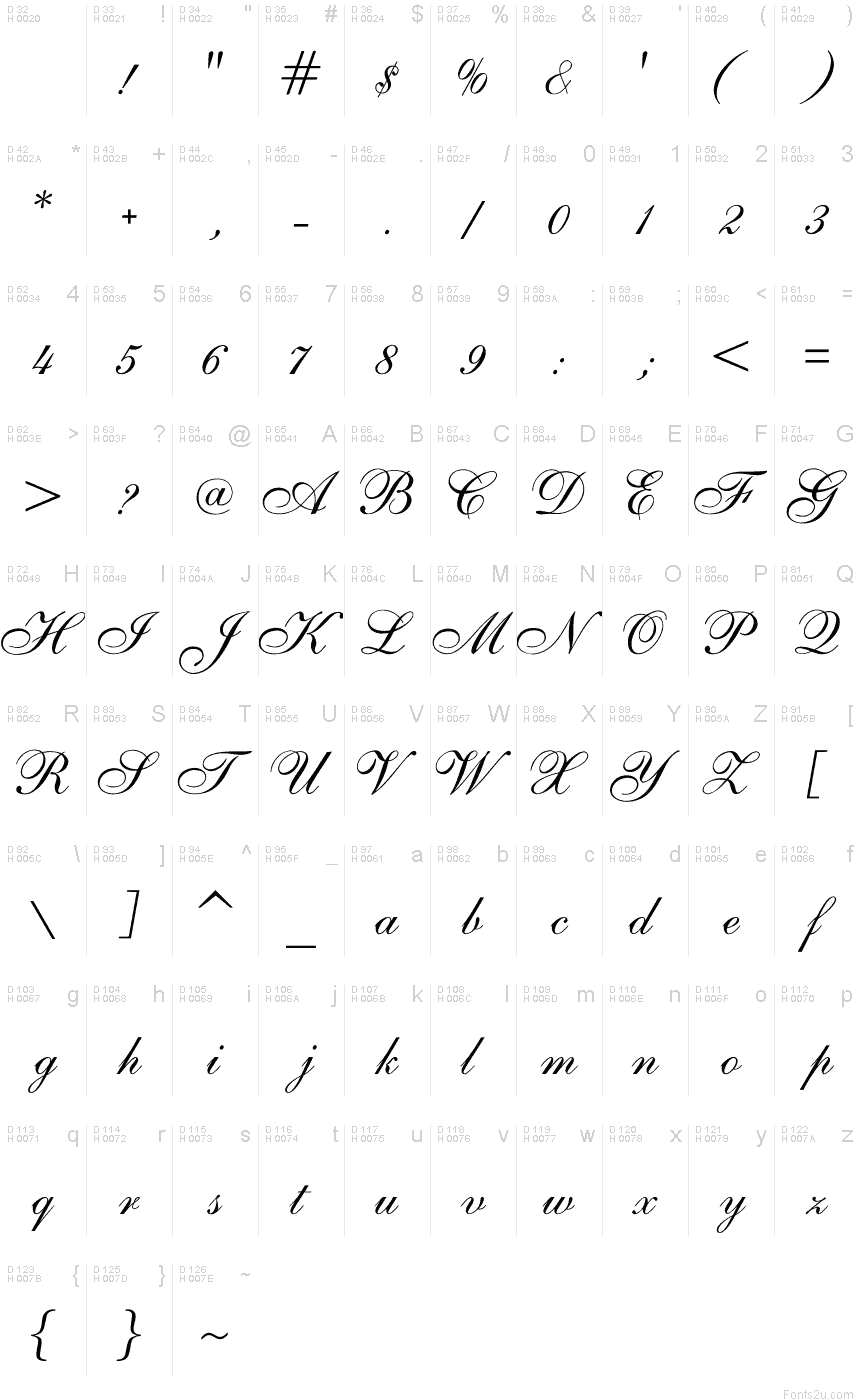
ALS Script
ALS Script font by Digital Graphic Labs is a free calligraphy font that brings old-world penmanship into crisp digital form. Its swirling loops, generous flourishes, and slightly tilted rhythm feel like ink brushed across fine stationery, giving every word a sense of ceremony and care. The letters link with a smooth, continuous flow, making long names and phrases look especially luxurious and cohesive.
Using ALS Script, your wedding invitations, event programs, certificates, branding for boutiques, beauty products, or restaurant menus gain a refined, romantic presence without feeling stuffy. This free font shines when set large with plenty of breathing room, where the curves can really unfurl. Pair it with a clean sans serif for supporting text to keep layouts readable while letting the script handle all the drama and elegance.